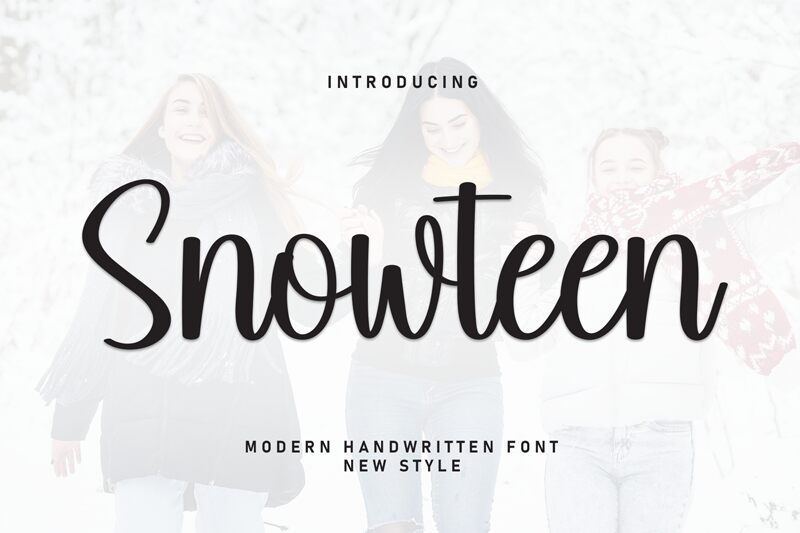
Snowteen
Snowteen font designed by Scratchones is a free handwritten font with curved and flowing strokes. Snowteen exhibits a casual script style with a sleek modern aesthetic. Approachable and expressive, this font offers an effortlessly stylish touch to each project it decorates.
Snowteen can be useful for organization branding, logo design, magazines, book covers, social media posts, greeting cards, blogs, advertisements…